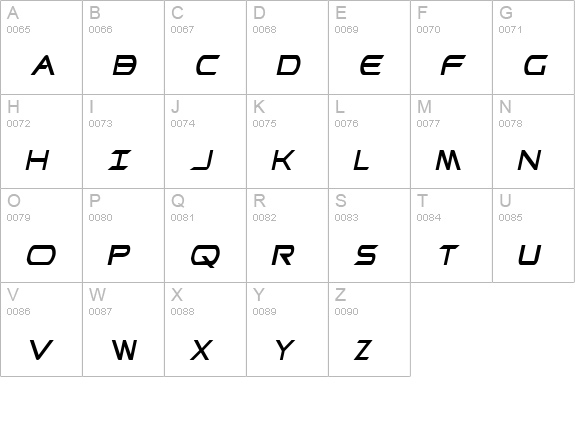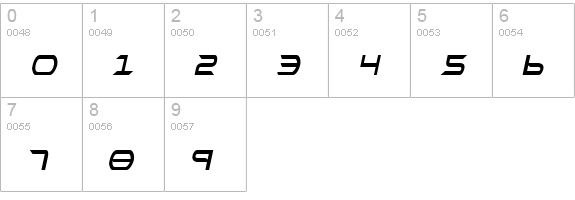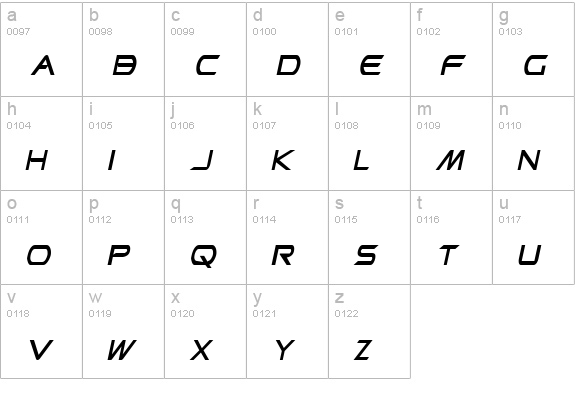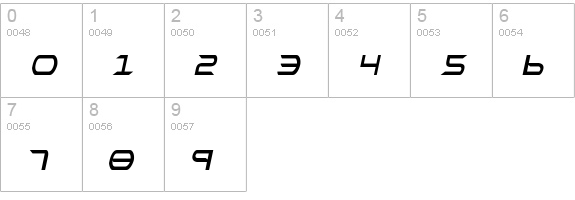
Promethean Condensed Italic is a distinctive, condensed-width, italic variant in the Promethean typeface family \xE2\x80\x94 well suited to design and typography projects.
Promethean Condensed Italic font exudes elegance and sophistication with its sleek and modern design. The italicized version adds a touch of flair and sophistication to any text or design project. The condensed style allows for more text to fit in smaller spaces without sacrificing readability. This versatile font is perfect for a wide range of applications, from branding and advertising to editorial and web design. Its clean lines and balanced proportions make it a great choice for both headings and body text. The best part? Promethean Condensed Italic font is available for free download at FontsMarket.com. Don't miss out on this opportunity to elevate your projects with this stylish and professional typeface.